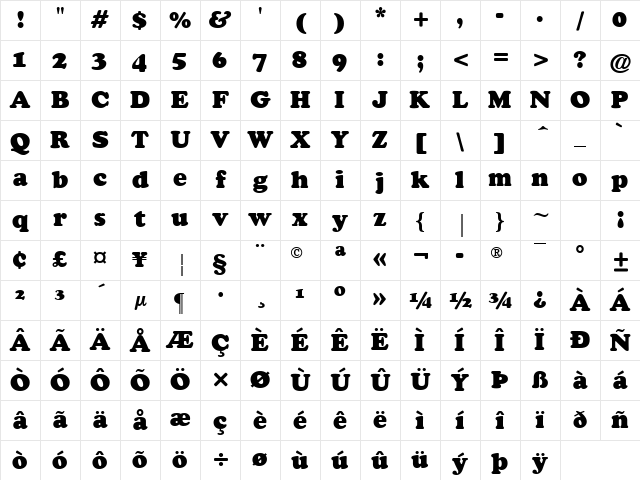
Ozzie Black Regular
Design Context for Ozzie Black
Ozzie Black is a composed and adaptable typeface that performs quietly and consistently across a wide range of design contexts.